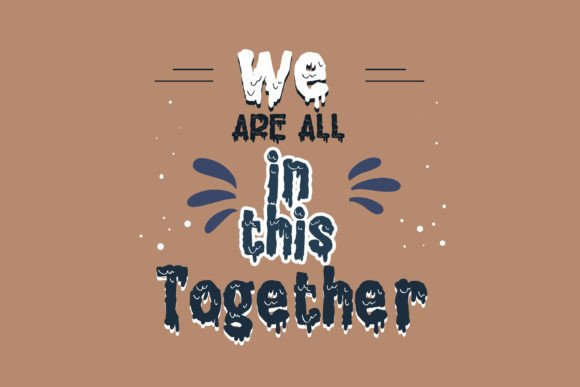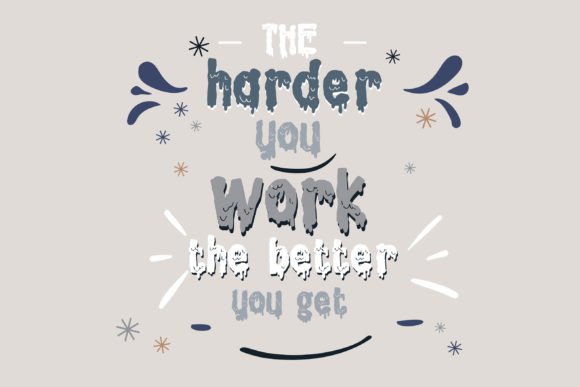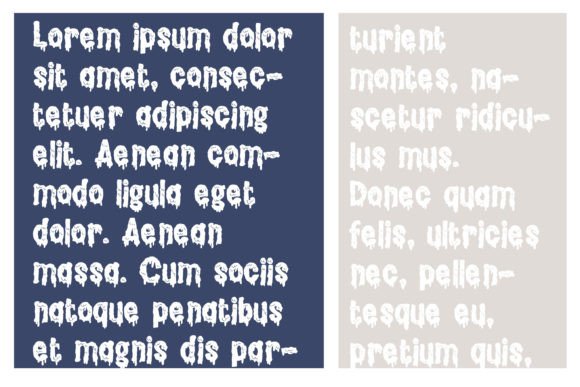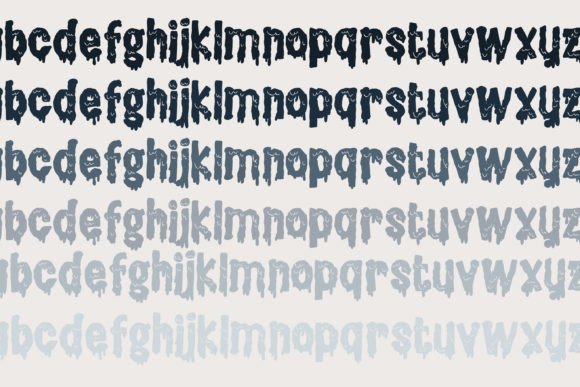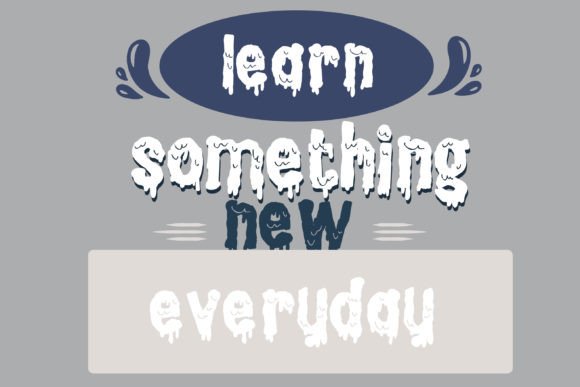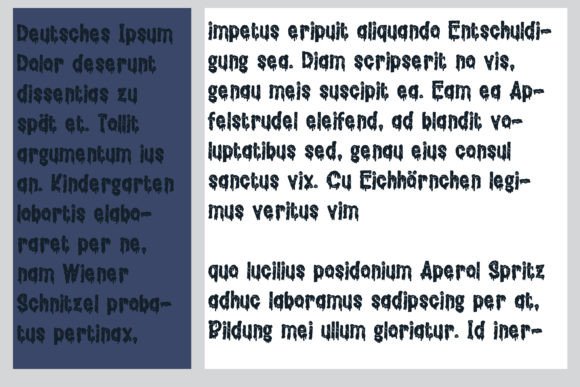
Brain Ooze Font: The Ultimate Halloween Typeface for Spooky Fun
Are you ready to add a dash of spooky fun to your Halloween projects? Look no further than the Brain Ooze font, a delightfully playful typeface designed to bring the magic of the season to your designs. With its whimsical and eerie letterforms, this font is perfect for party invitations, posters, and spooky decorations that will leave your friends and family screaming with delight.
The Inspiration Behind Brain Ooze Font
The Brain Ooze font is inspired by the classic horror movies and spooky decorations that we all love during the Halloween season. Its unique and quirky design is reminiscent of slimy, gooey brains, making it the perfect fit for any Halloween-themed project. Whether you’re a designer, crafter, or simply a Halloween enthusiast, this font is sure to cast a spell on your audience.
Key Features of Brain Ooze Font
- Whimsical and Eerie Letterforms: The Brain Ooze font features letterforms that are both playful and spooky, making it perfect for Halloween-themed projects.
- High-Quality Design: The font is designed with high-quality vectors, ensuring that it looks great in any size or resolution.
Uses for Brain Ooze Font
The Brain Ooze font is perfect for a variety of Halloween-themed projects, including:
- Party Invitations: Create spooky and fun party invitations that will set the tone for your Halloween bash.
- Posters and Flyers: Design eye-catching posters and flyers that will grab the attention of your audience and leave them screaming for more.
- Spooky Decorations: Use the Brain Ooze font to create spooky decorations, such as signs, banners, and garlands, that will add a touch of Halloween magic to your home or office.
- Digital Projects: Use the font in your digital projects, such as social media graphics, videos, and animations, to add a touch of spooky fun.
Tips for Using Brain Ooze Font
Here are some tips for using the Brain Ooze font in your projects:
- Experiment with Colors: The Brain Ooze font looks great in a variety of colors, so don’t be afraid to experiment and find the perfect color scheme for your project.
- Mix and Match: Combine the Brain Ooze font with other fonts and graphics to create a unique and eye-catching design.
- Pay Attention to Size: Make sure to adjust the size of the font according to the project you’re working on, to ensure that it looks great and is easy to read.
The Brain Ooze font is a must-have for any designer or crafter looking to add a touch of spooky fun to their Halloween projects. With its whimsical and eerie letterforms, high-quality design, and ease of use, this font is perfect for party invitations, posters, spooky decorations, and digital projects. So why wait? Get ready to cast a spell on your audience with the Brain Ooze font!